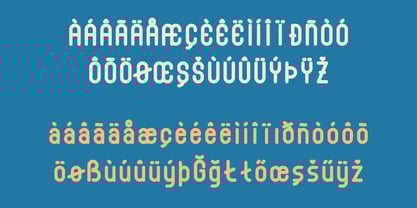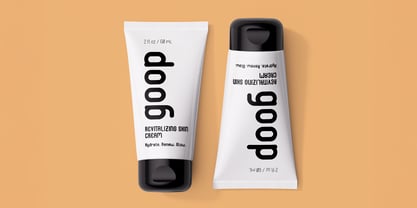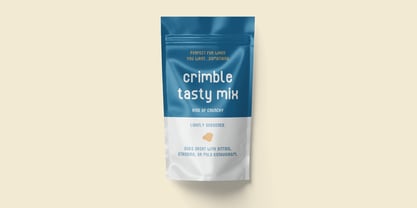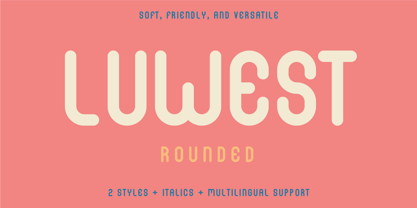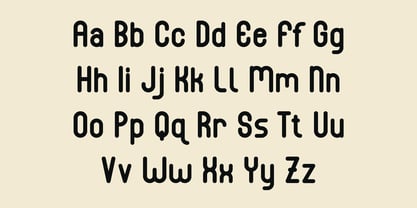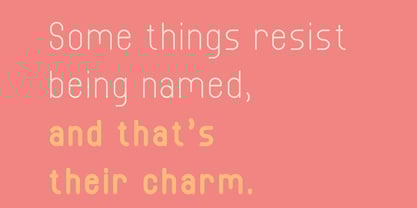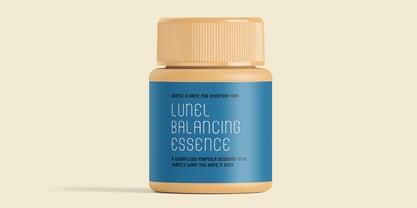
Luwest Rounded
by Elyas Beria
The Luwest Rounded Font Family was designed by Elyas Beria and published by Elyas Beria. Luwest Rounded contains 4 styles and family package options. More about this family
Soft, friendly, and versatile. Luwest Rounded is a clean, modern rounded font family with two weights and matching italics. Its smooth curves and balanced shapes make it approachable yet refined—ideal for logos, packaging, editorial layouts, posters, presentations, and everyday design use. The Light weight offers an airy contrast to the bolder Regular, giving you flexibility across applications. Luwest Rounded includes: • Uppercase and lowercase • Regular and Light weights • Italics for both weights • Comprehensive international character set Thank you for viewing Luwest Rounded. Feel free to reach out with any questions or feedback.